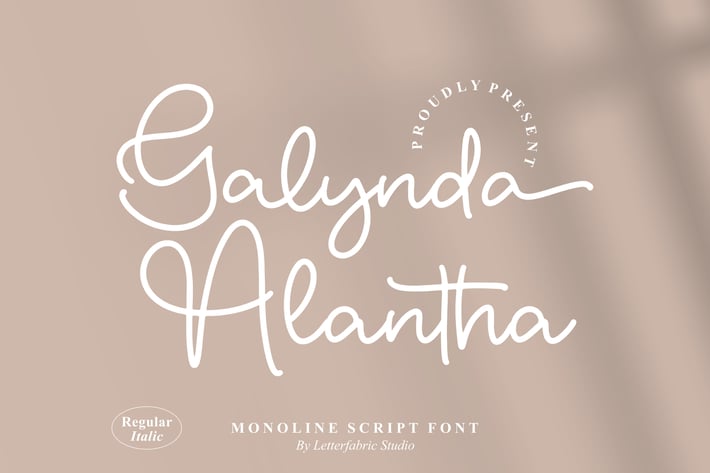
Galynda Alantha Monoline Script Font
Galynda Alantha is a soft monoline script with a clean, effortless handwritten flow. Its smooth, rounded strokes create a warm and welcoming aesthetic, perfect for lifestyle branding, cozy product packaging, and social media designs that aim for a friendly, approachable look.
Monoline script with smooth, balanced strokes
Clean handwritten style ideal for modern minimal branding
Simple, readable letterforms with a gentle, organic feel
Works beautifully for both digital and print applications
Lifestyle & small business branding
Product labels & packaging
Social media posts & inspirational quotes
Greeting cards, invitations, and stationery
Cozy, warm-themed visuals and moodboards
Craft projects & personal design work
Soft monoline charm for friendly, modern handwritten branding.